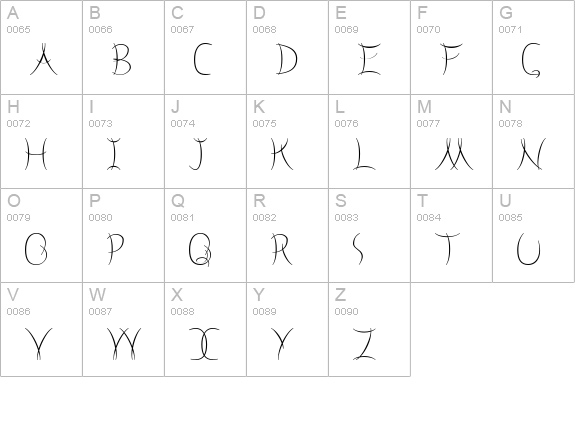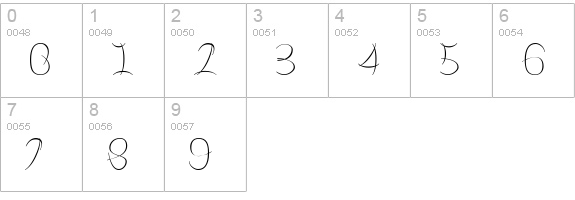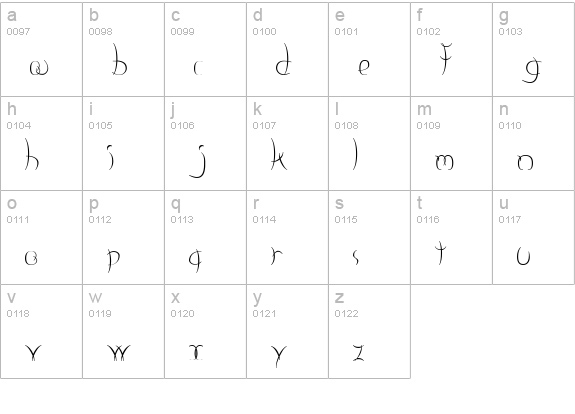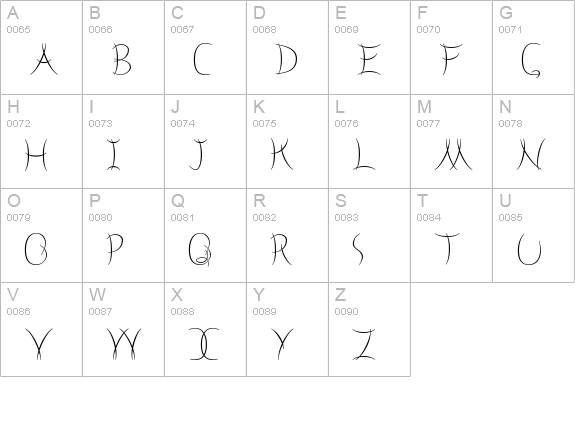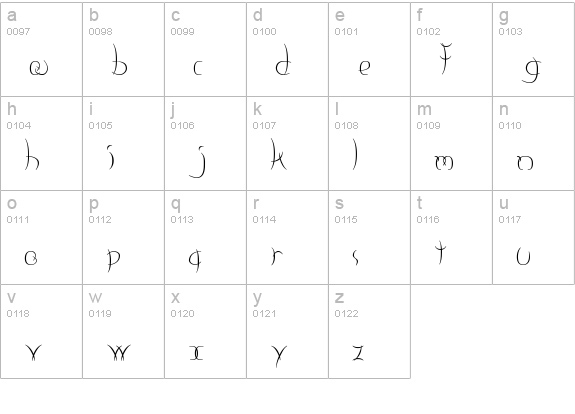
Neige Font Details
Neige font is a stunning display typeface that exudes elegance and sophistication. With its intricate details and graceful curves, Neige is perfect for adding a touch of class to your designs. This versatile font can be used for a variety of projects, from branding to invitations to packaging. The best part? Neige font is completely free to download at FontsMarket.com. That's right, you can elevate your design projects with this exquisite font without spending a dime. Don't miss out on the opportunity to enhance your creations with Neige font - download it today and let your creativity soar!